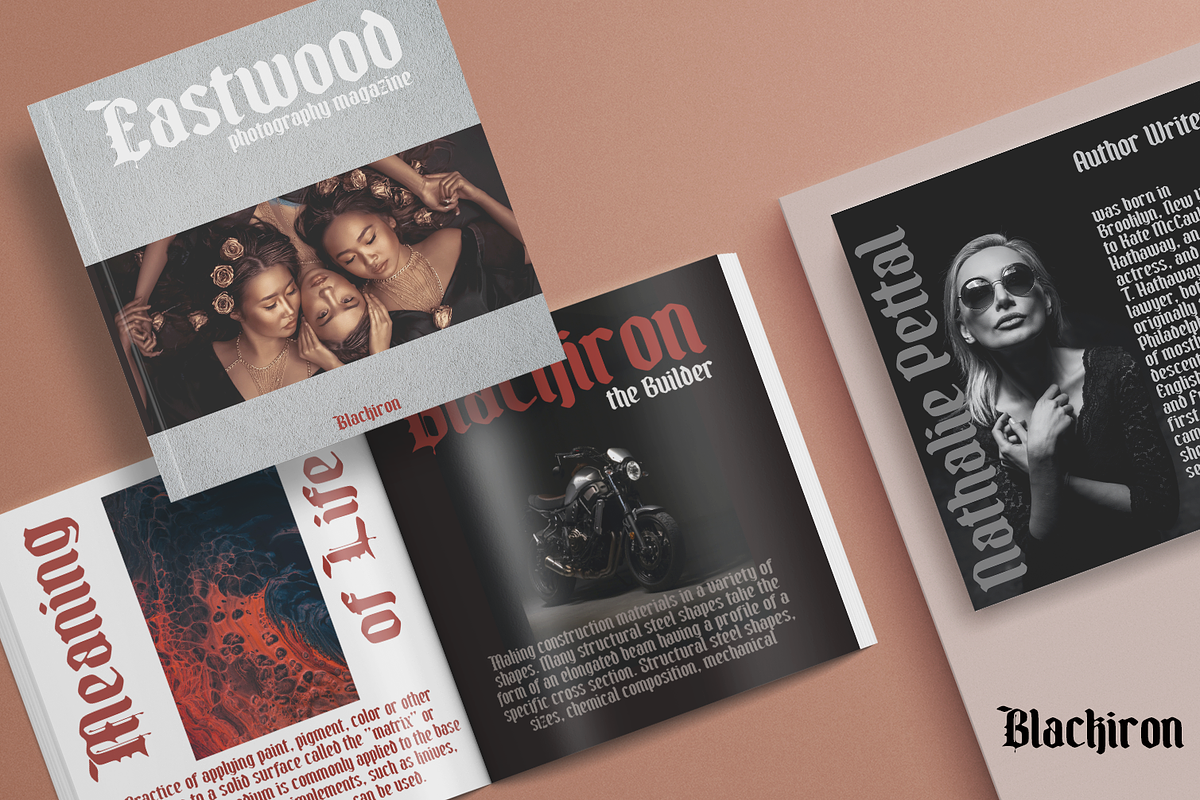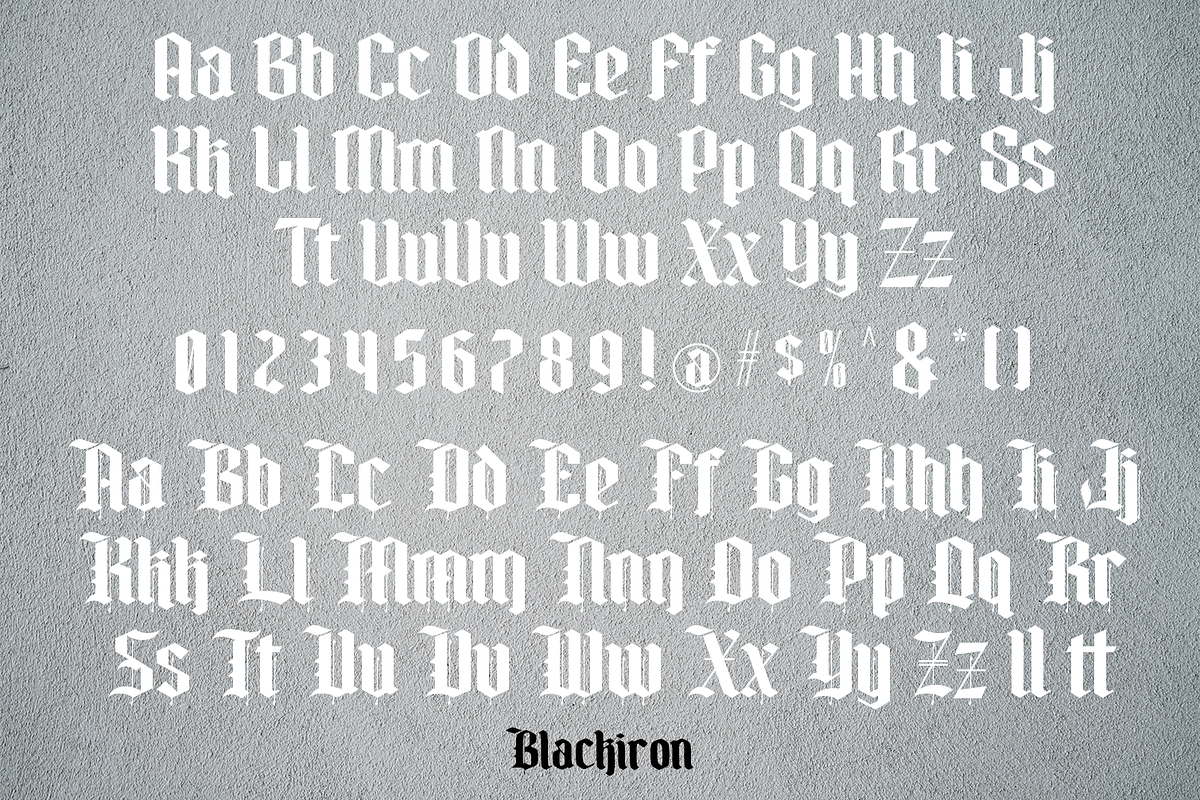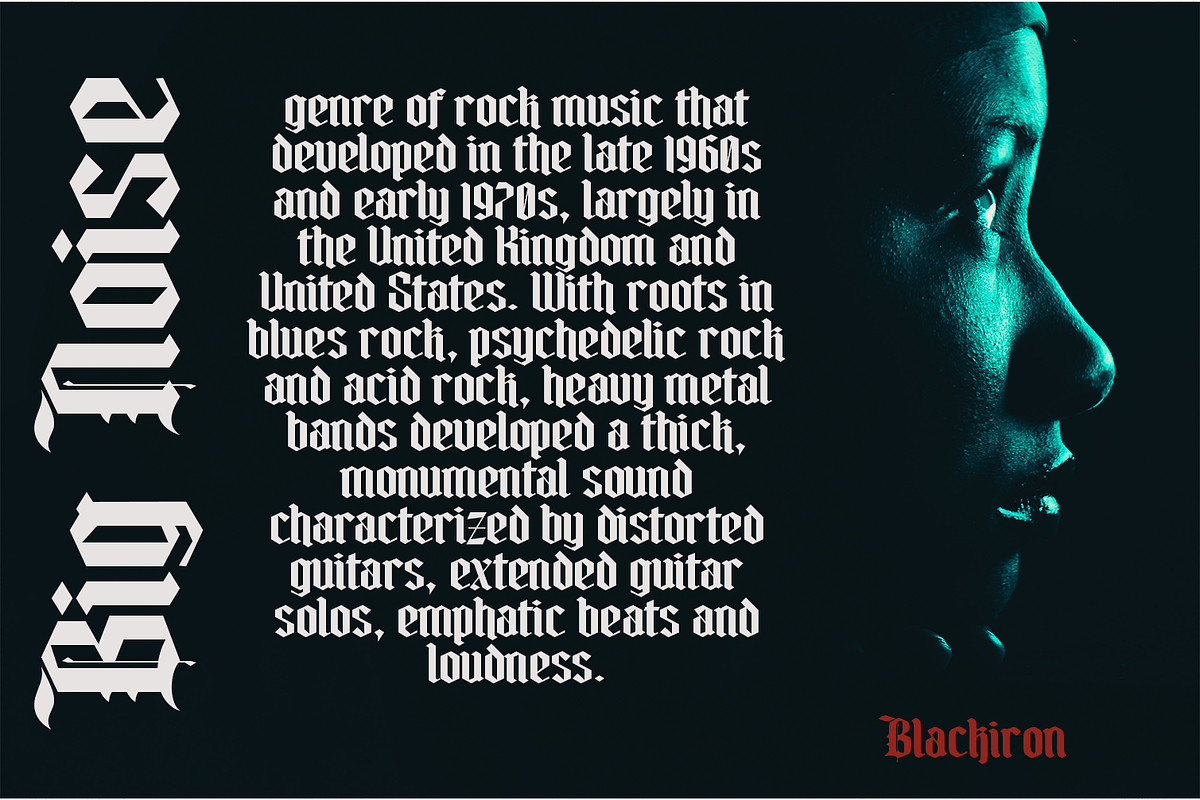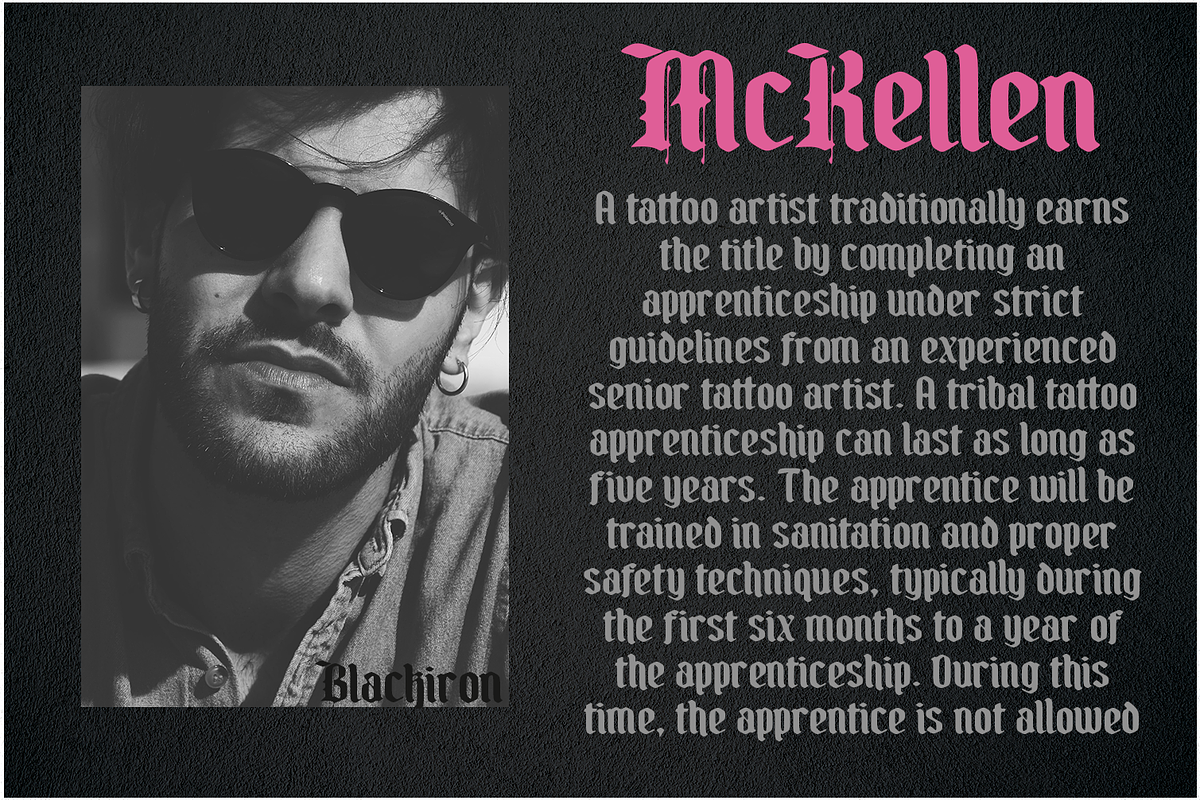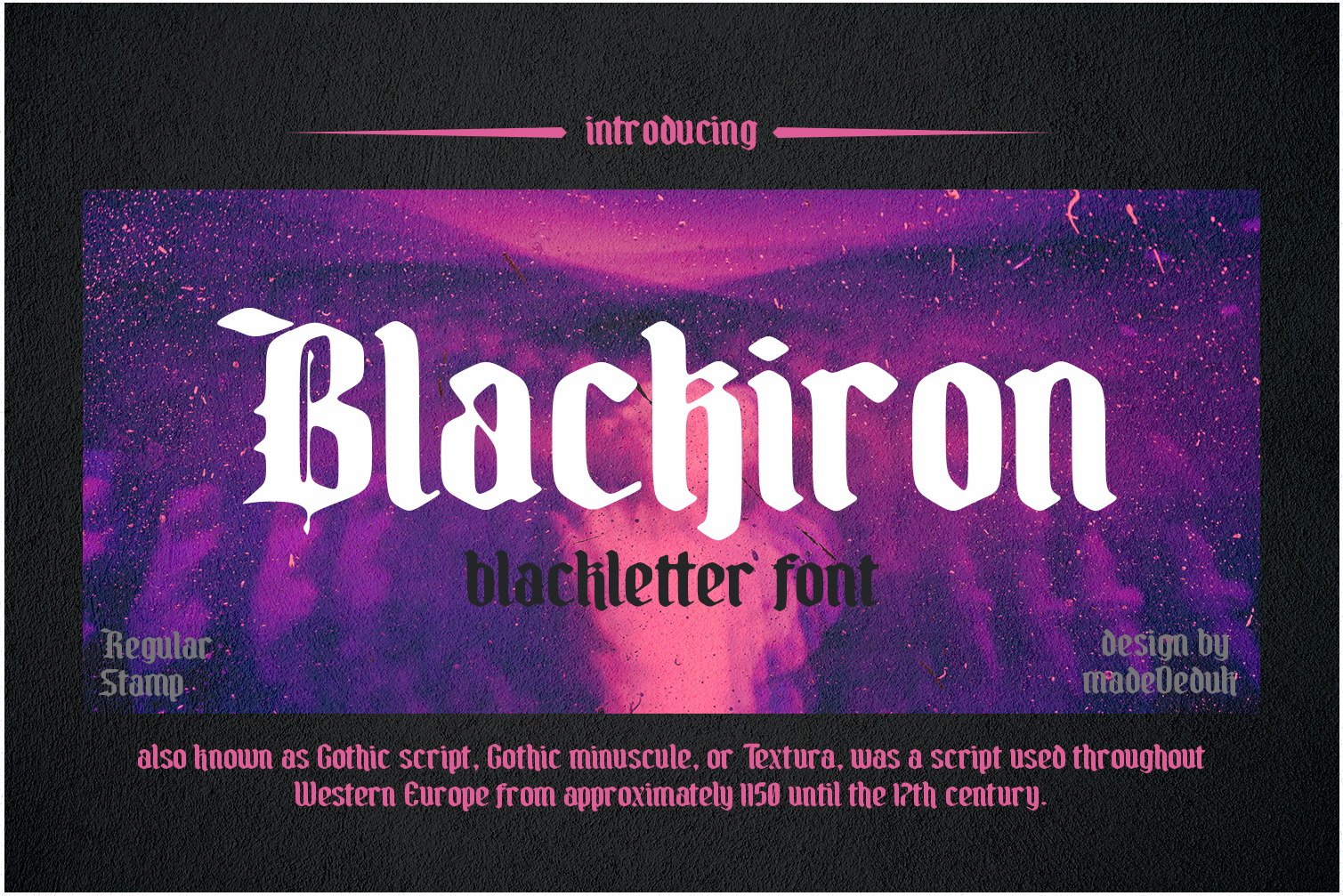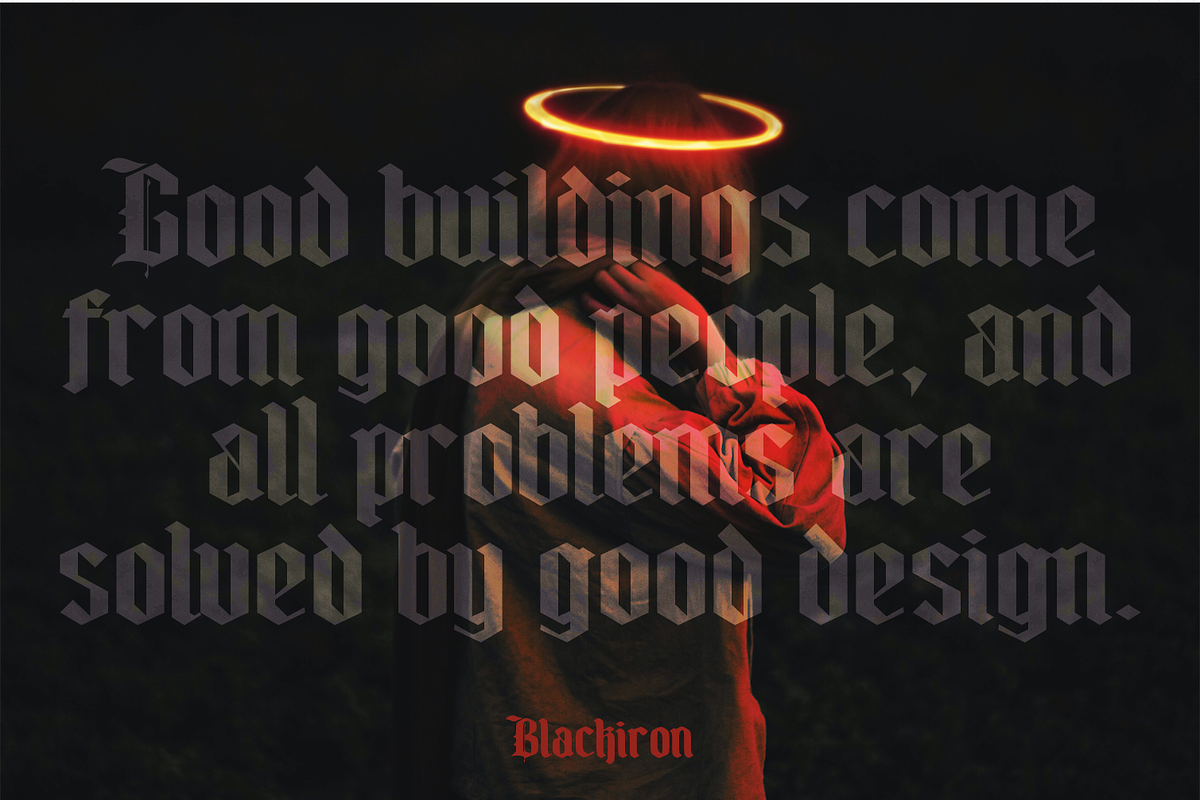
Blackiron - Blackletter Font
Really excited to introduce Blackiron is a classic vintage blackletter font, made with a stylish impression and supported by alternative with references to various letters that I combine. There's come with 2 style font and suitable to create any branding, product packaging, invitation, quotes, t-shirt, label, poster, logo etc.